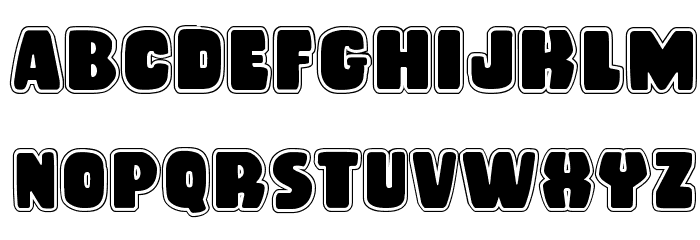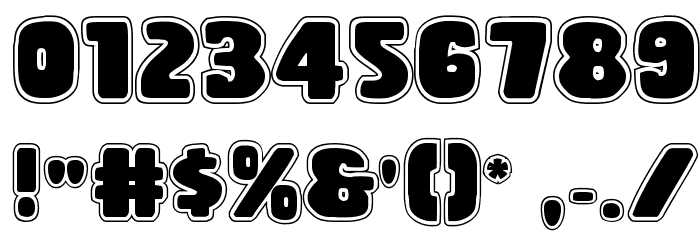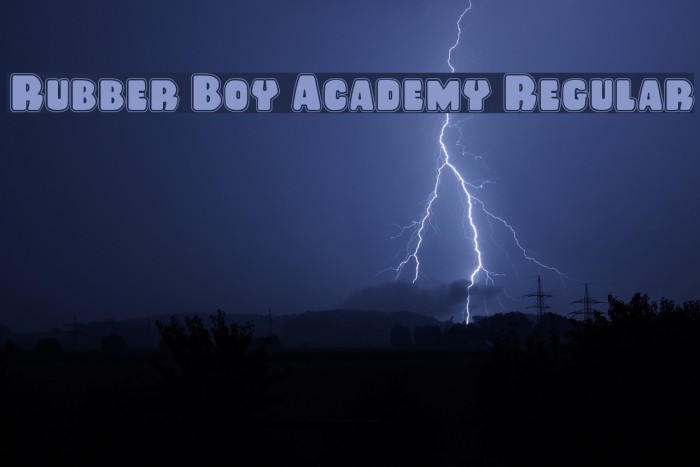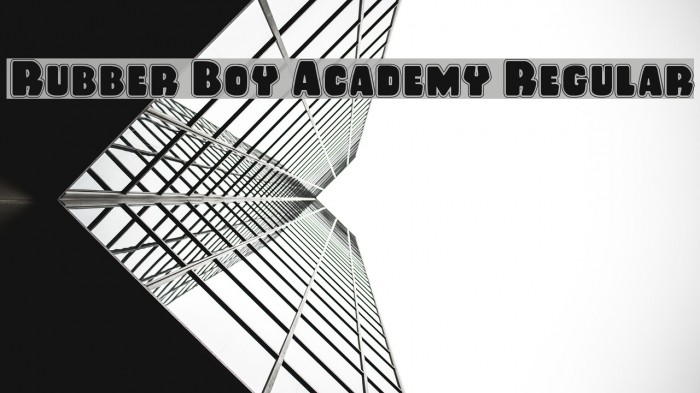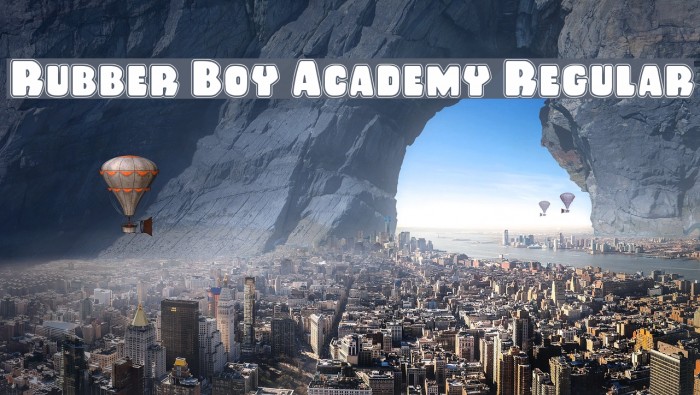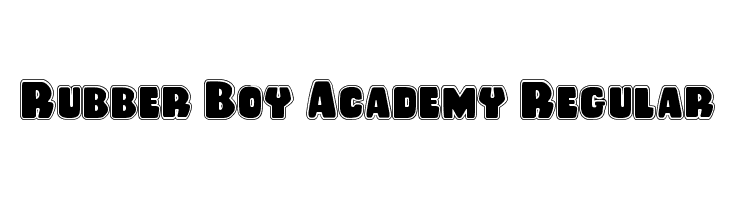
Rubber Boy Academy Regular Font
This font features a bold, playful design with a thick outline that gives each character a three-dimensional effect. The letters are rounded and have a soft, bubble-like appearance, making them stand out with a friendly and approachable vibe. The uppercase and lowercase letters maintain a consistent style, with the numbers and special characters following suit. The overall look is reminiscent of retro or comic book styles, adding a touch of nostalgia and fun. The font's boldness and unique outline make it ideal for eye-catching designs.
A bold, playful font with a three-dimensional bubble-like appearance.
- Proposed Projects: Ideal for children's books, comic strips, playful branding, and retro-themed designs.
- Overall Style: Playful, Retro